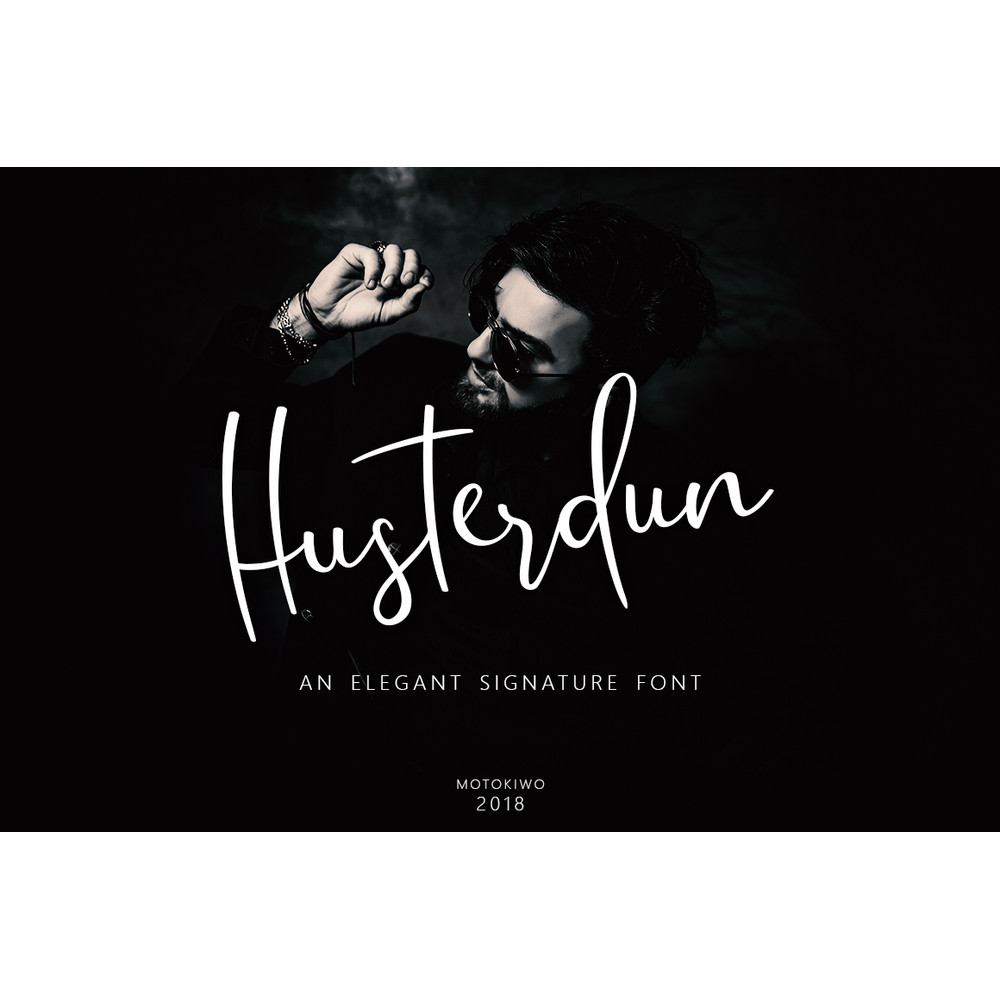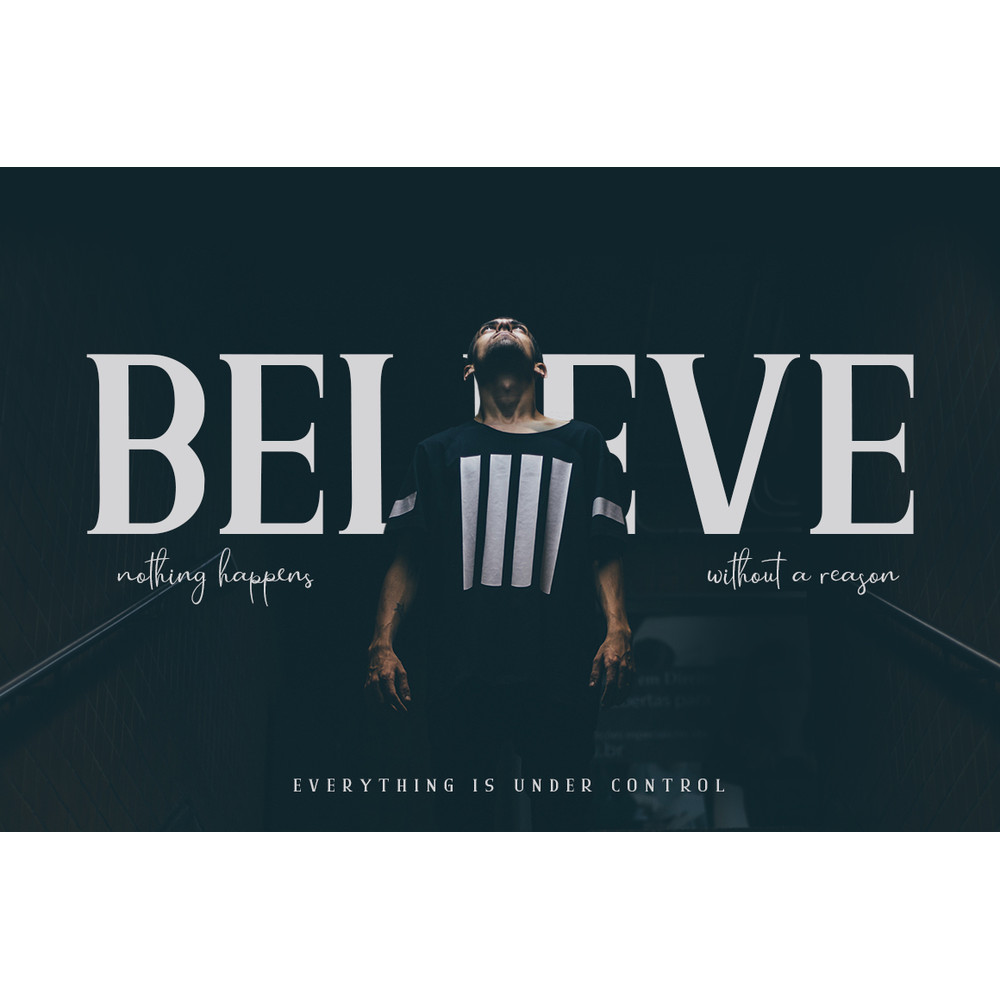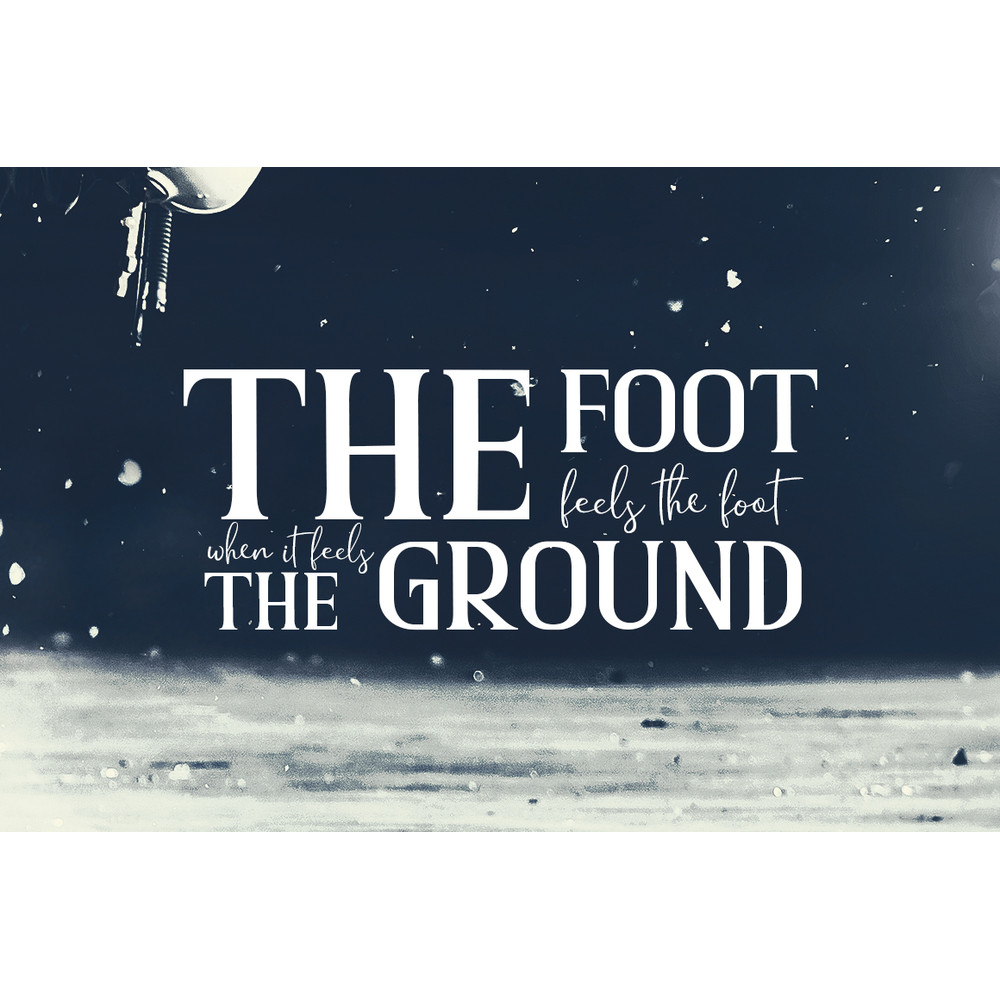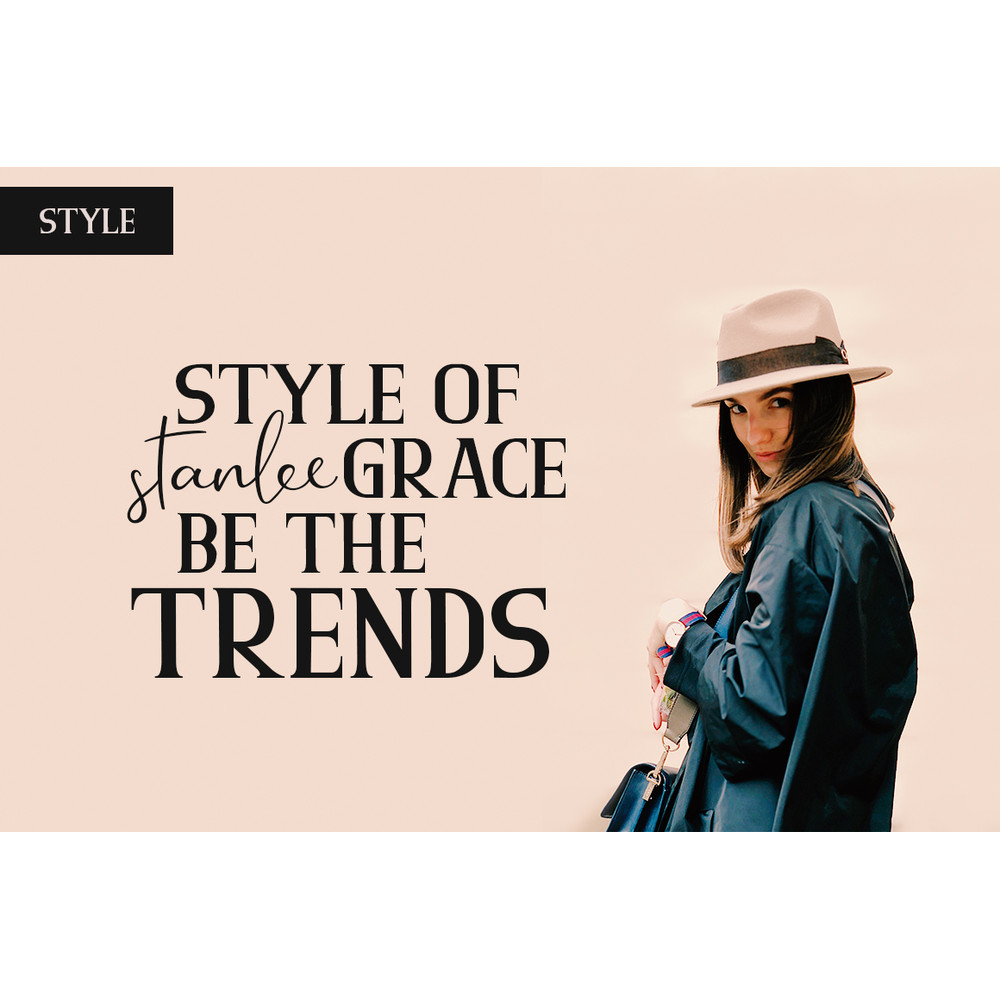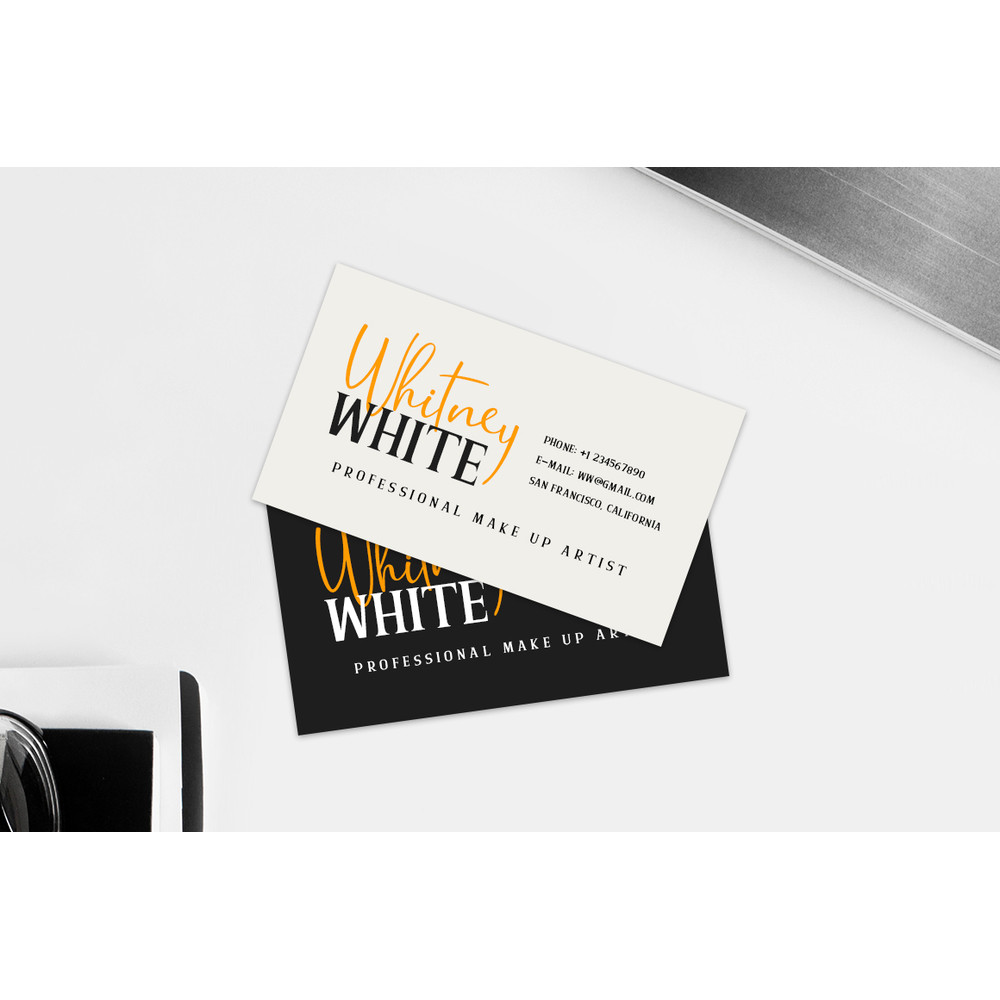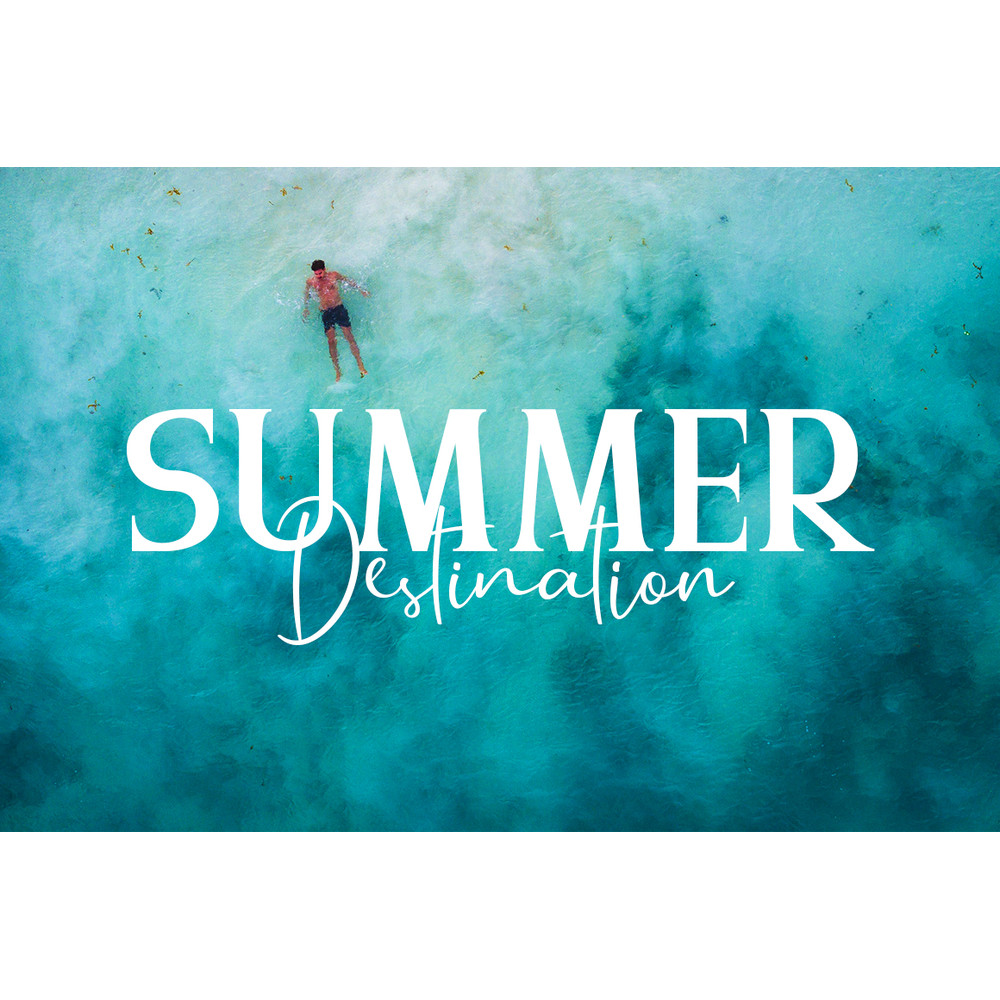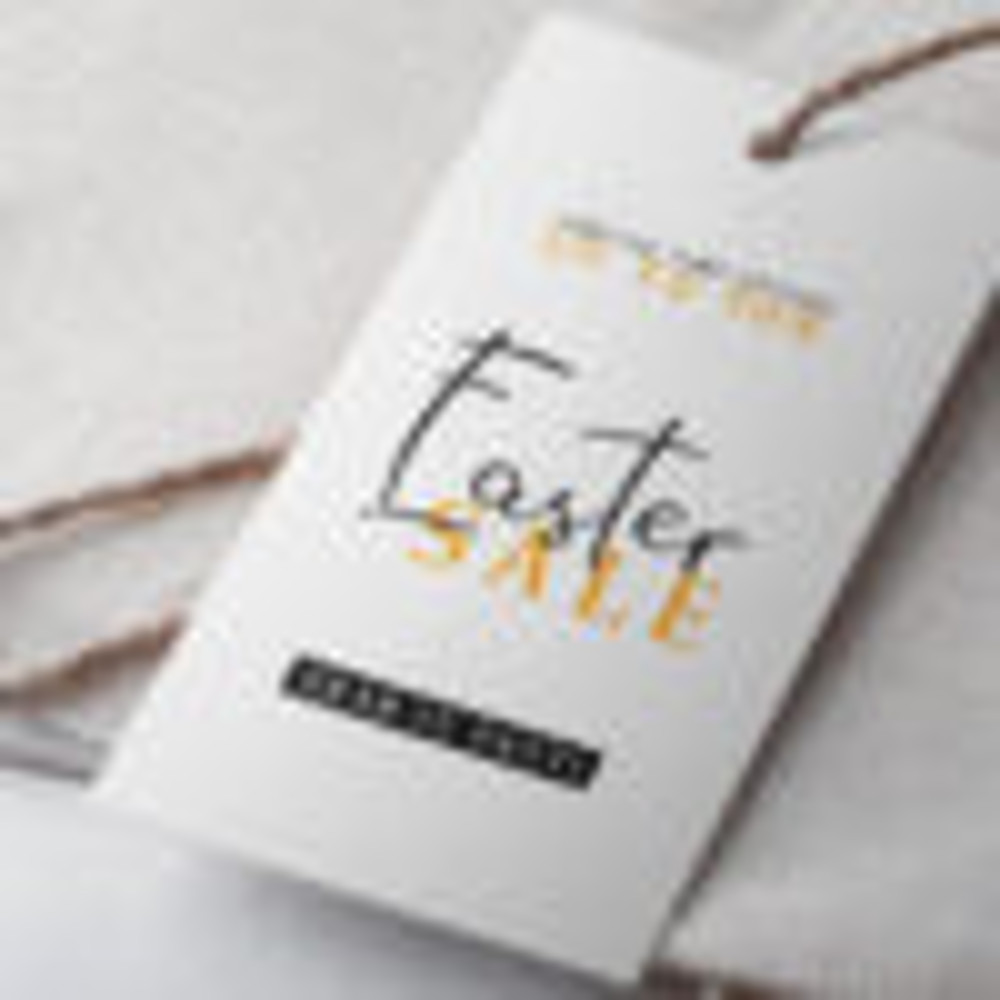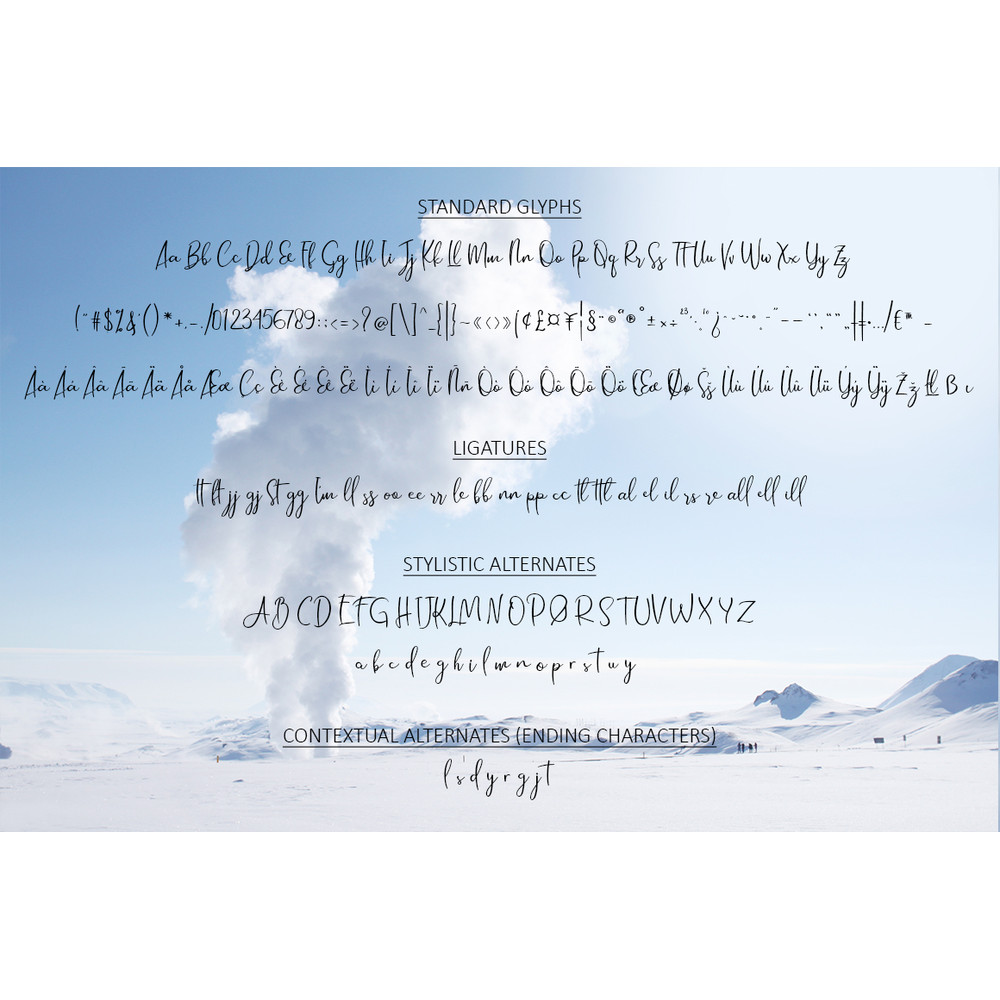
Husterdun Font Duo Trending Fonts - Digital Font
Husterdun Script : A clean script font including uppercase and lowercase, numeral and punctuation, ligatures, alternate characters, basic multilingual characters, with PUA Encoded (all glyphs is accessible).
Husterdun Serif : An uppercase serif font with numeral, punctuation, and basic multilingual characters.